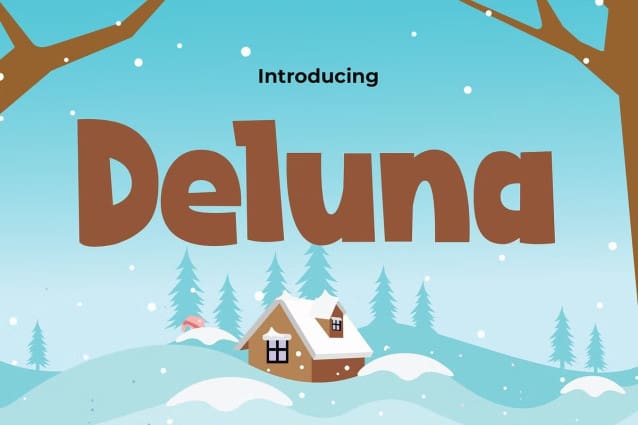
Deluna Playful Font
Deluna Playful Font, embodies the playful essence of childhood and the vibrant world of cartoons. This font is meticulously crafted to bring joy and imagination to any project aimed at kids and cartoon enthusiasts alike. With its whimsical curves and cheerful demeanor, Deluna adds a touch of magic to every letter, inviting young minds to embark on delightful adventures through its playful design.
Whether you’re designing storybooks, creating animated characters, or developing educational materials for children, Deluna elevates your projects with its unique charm and versatility. Its lively personality and captivating style make it the perfect choice for capturing the attention of young audiences, fostering creativity, and infusing a sense of wonder into every design. Let Deluna Playful be your font of choice to bring characters to life and create enchanting worlds where imagination knows no bounds.